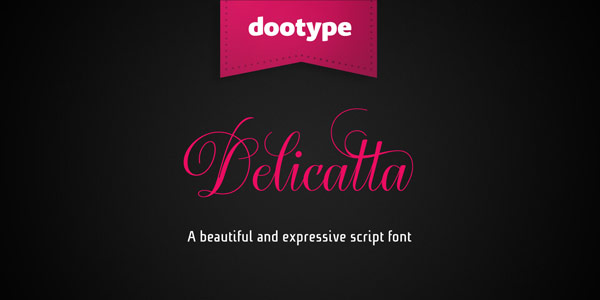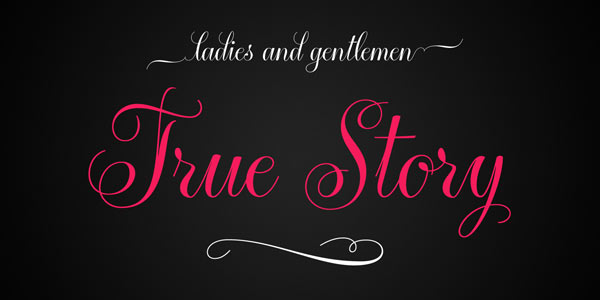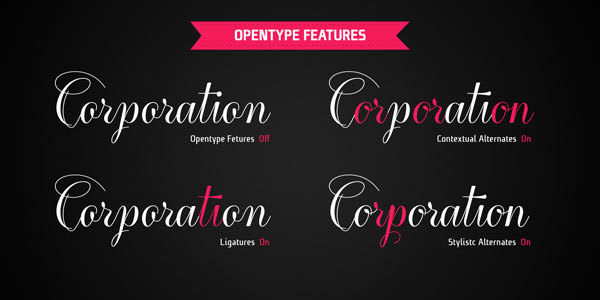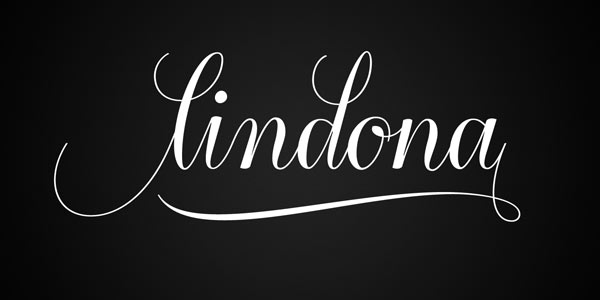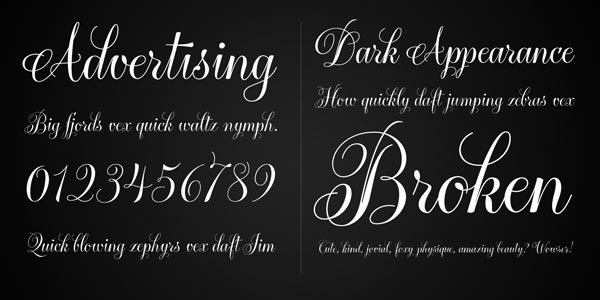
Delicatta – Expressive Script Typeface.
Isn’t it beautiful? Delicatta is a decorative script font by dooType. The beautiful and expressive typeface can be used in many decorative areas such as invitations, packaging design, or headlines in magazines and posters. Delicatta includes many OpenType features like alternate characters and ligatures. This festive script typeface is available as webfont and desktop font.